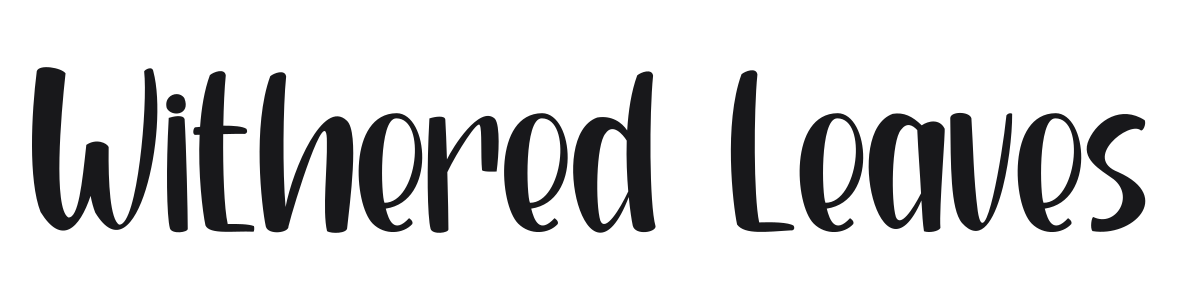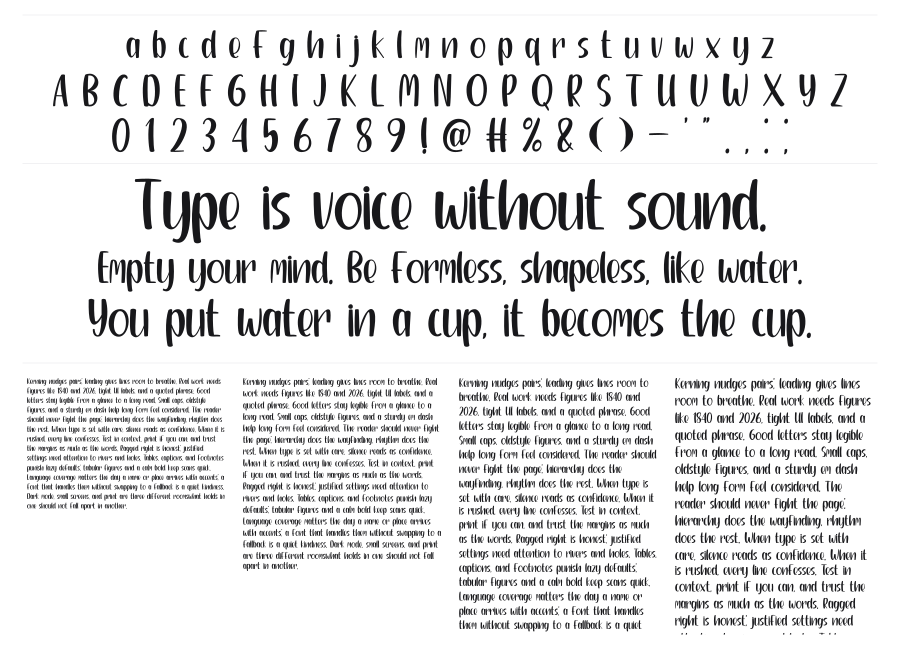
Withered Leaves
Withered Leaves is a bold upright casual script with a bouncing baseline and hand-lettered energy. The thick, rounded strokes and playful rhythm give it the feel of confident marker lettering rather than formal calligraphy. It works well for logos, packaging, and anywhere a warm, approachable voice is needed.